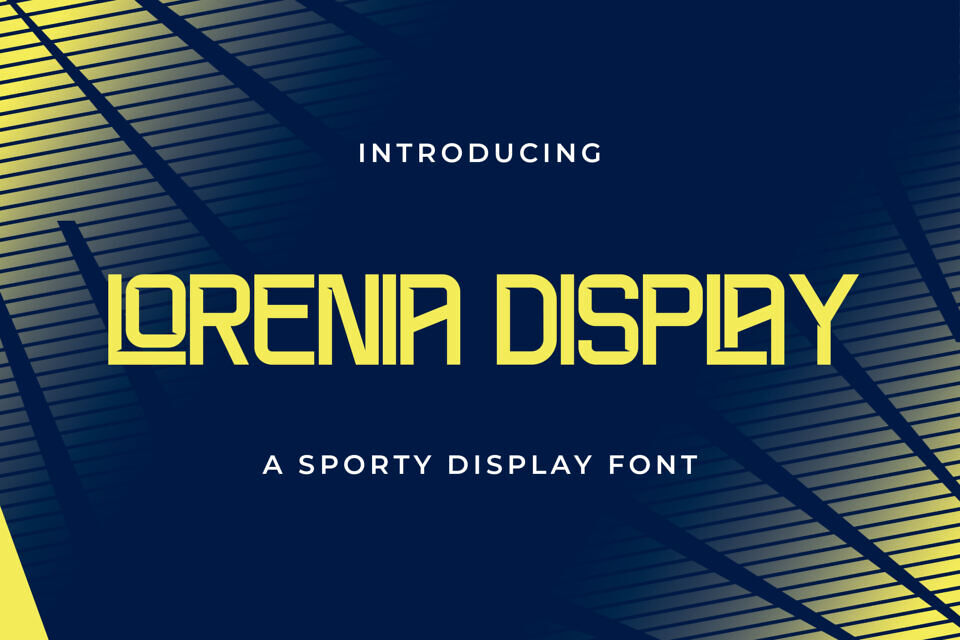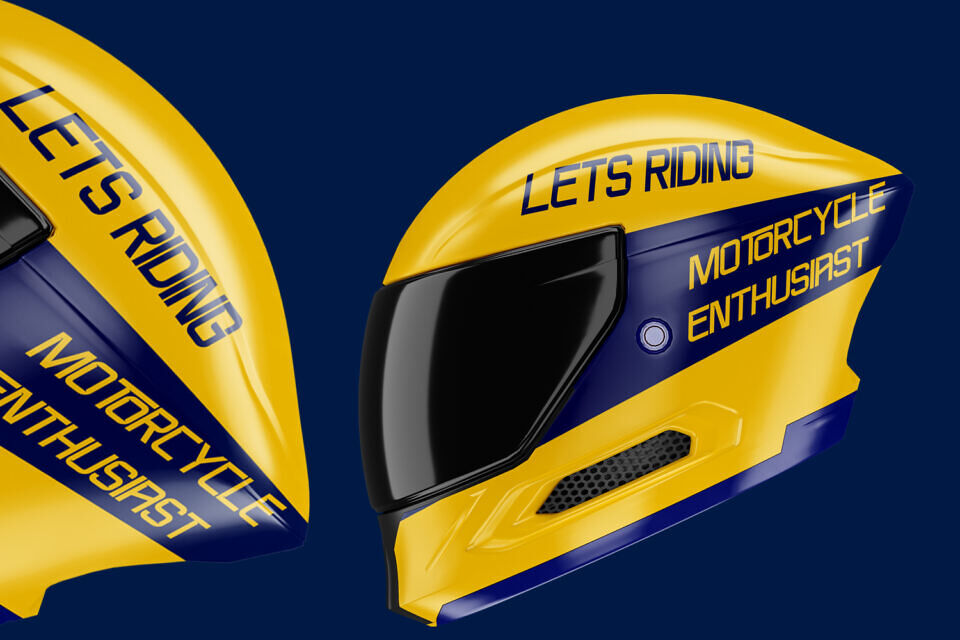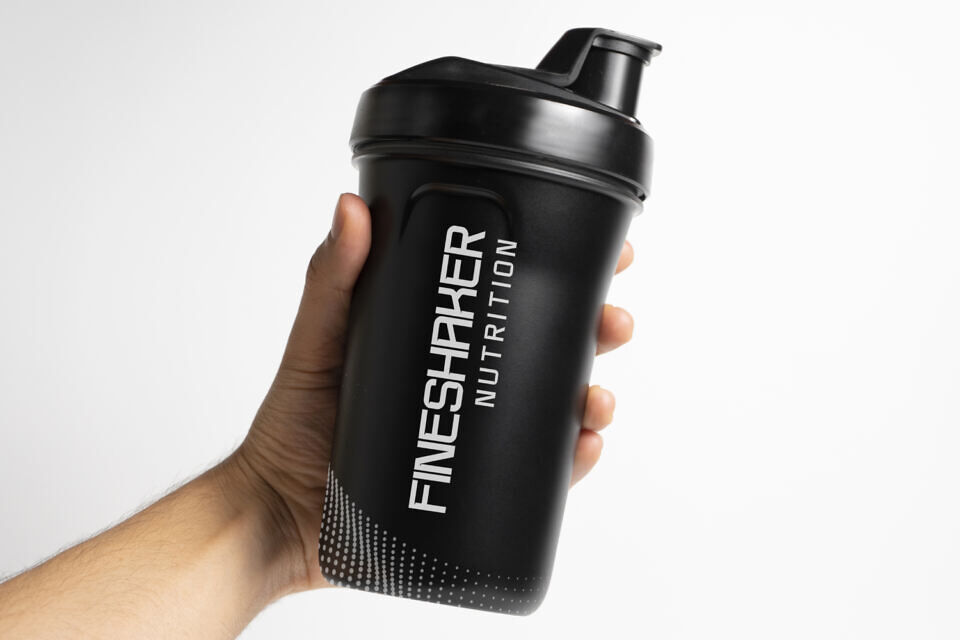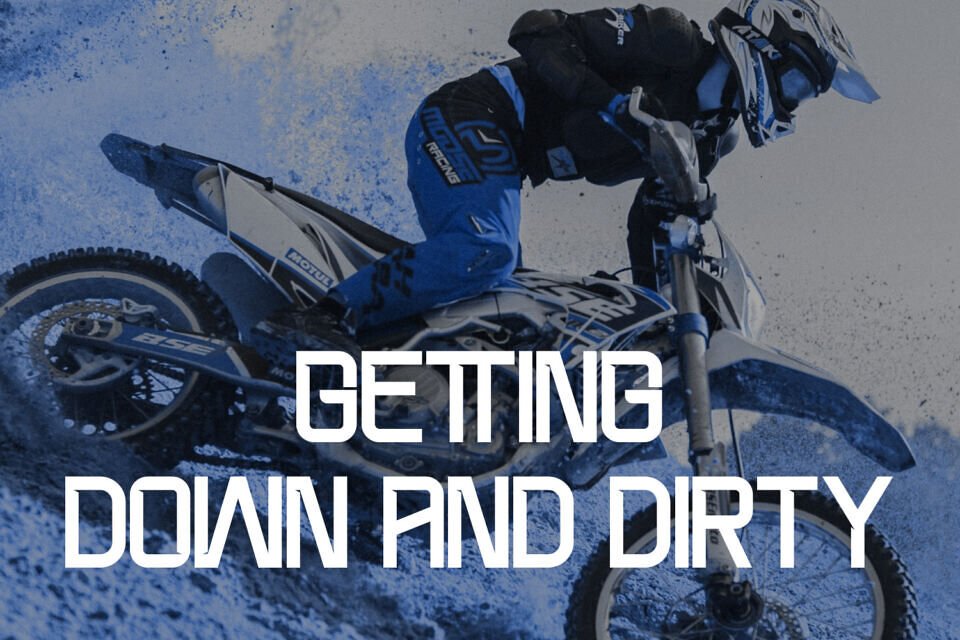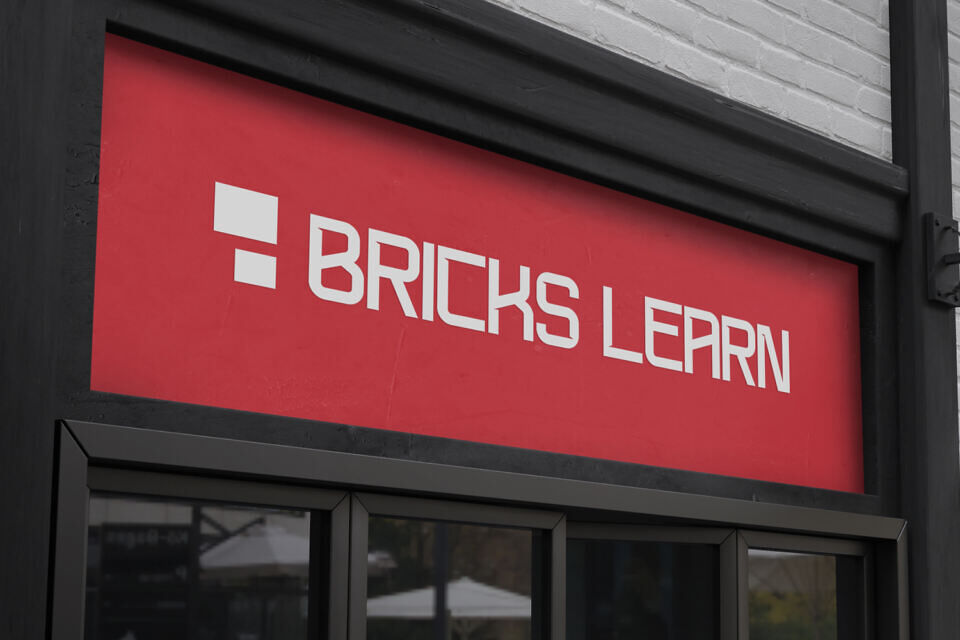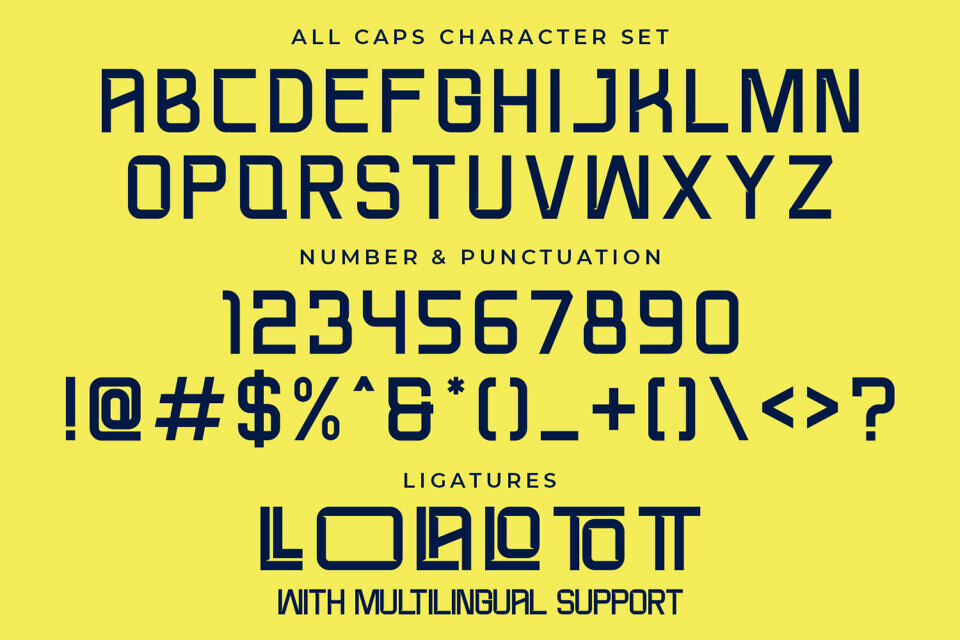
Lorenia Sport Display Font is a bold, dynamic typeface designed for speed, power, and impact. Its sharp edges and futuristic design make it perfect for sports branding, racing themes, and energetic marketing materials.
Whether used on helmets, apparel, or posters, Lorenia exudes confidence and modernity. With multilingual support and striking ligatures, this font is built for those who dare to stand out. Elevate your designs with the adrenaline-packed aesthetics of Lorenia Sport Font.